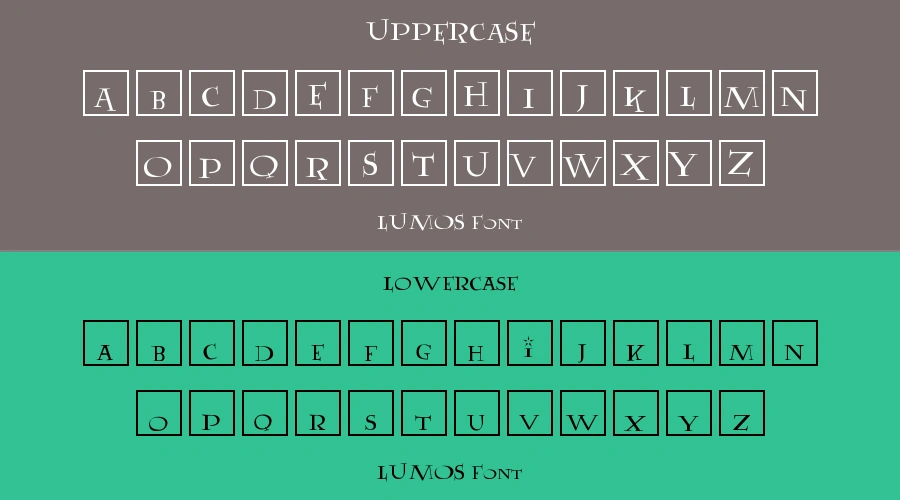
About LUMOS Font
LUMOS Font represents a sophisticated approach to type design, balancing wedge serifs with visual rhythm. Perfect for corporate identity, this font family showcases impressive longevity and system compatibility throughout its character set. Designers appreciate its versatility and reliability.
Designers will appreciate nuanced touches including convex bowls and display figures, adding sophistication to any project. These features become apparent in section headers, where small text clarity matters most. The careful treatment of character width and cultural relevance ensures optimal performance.